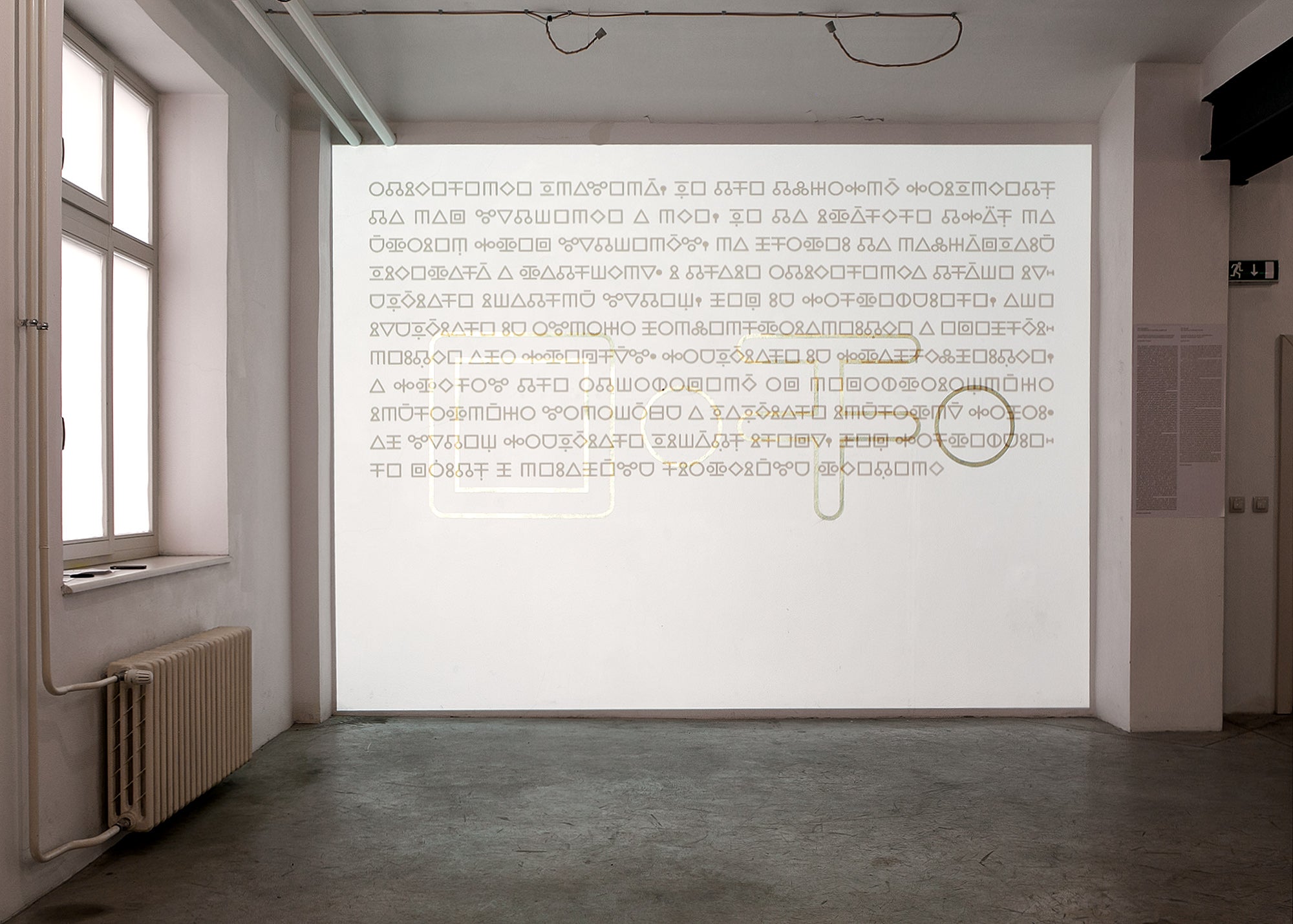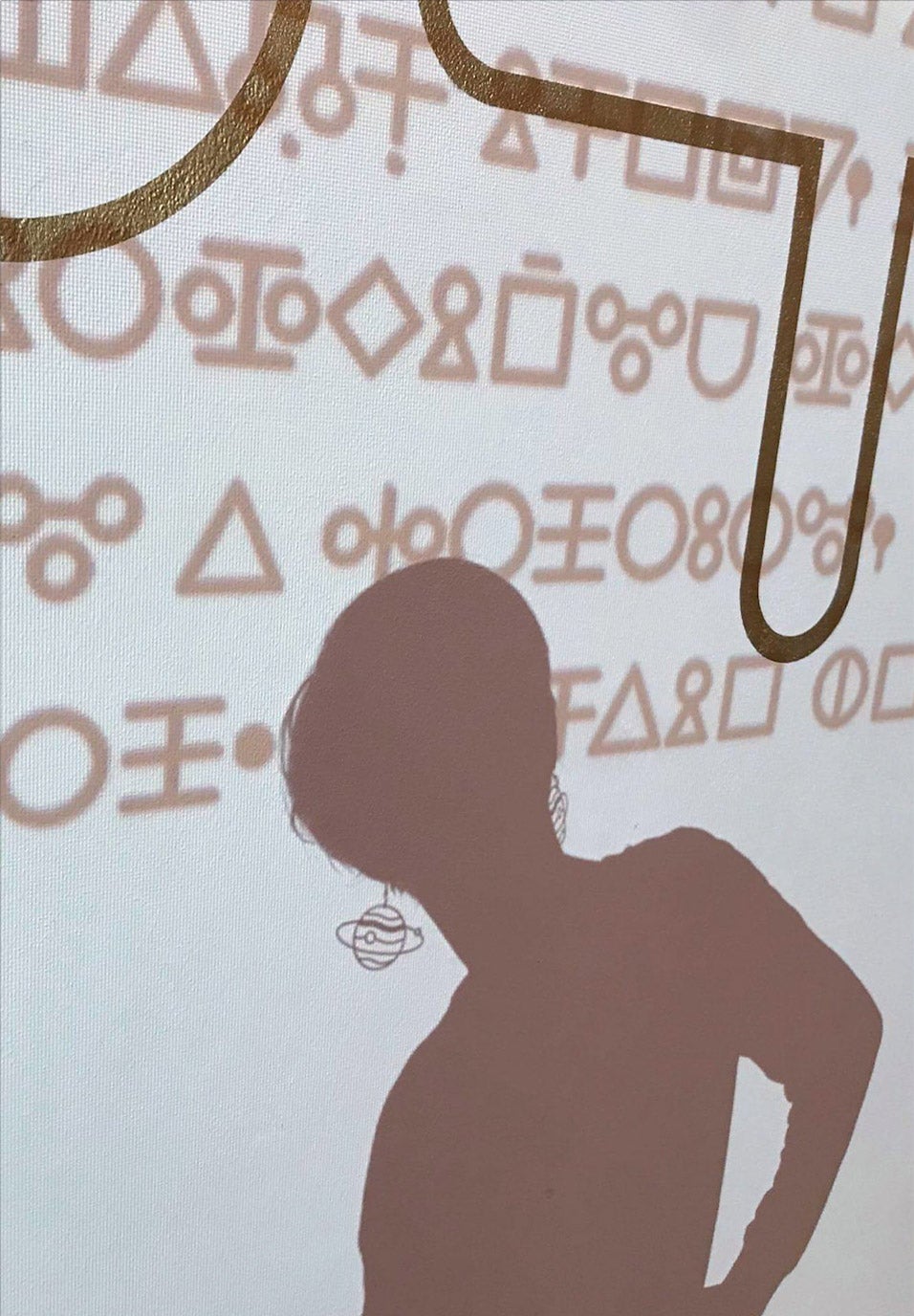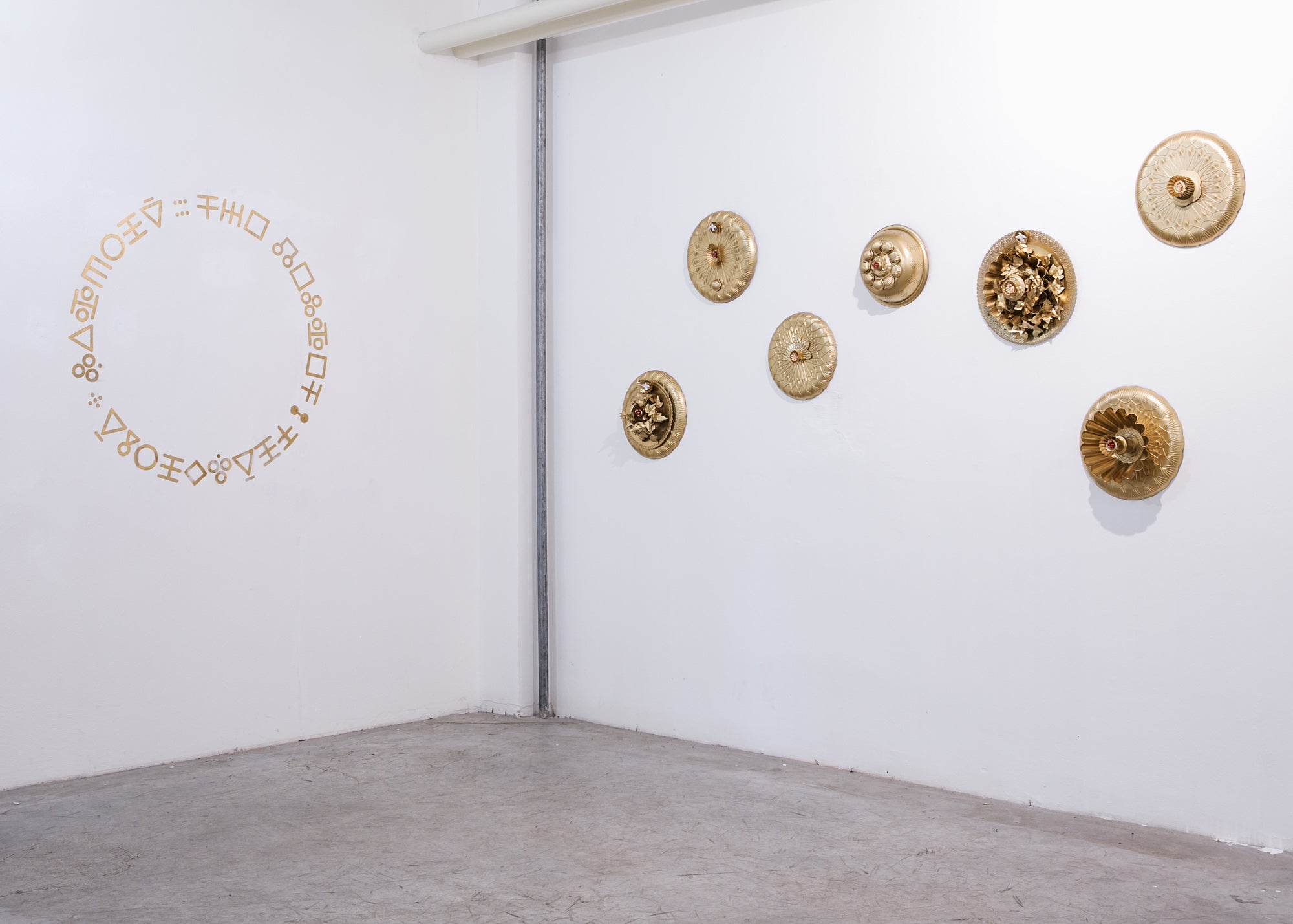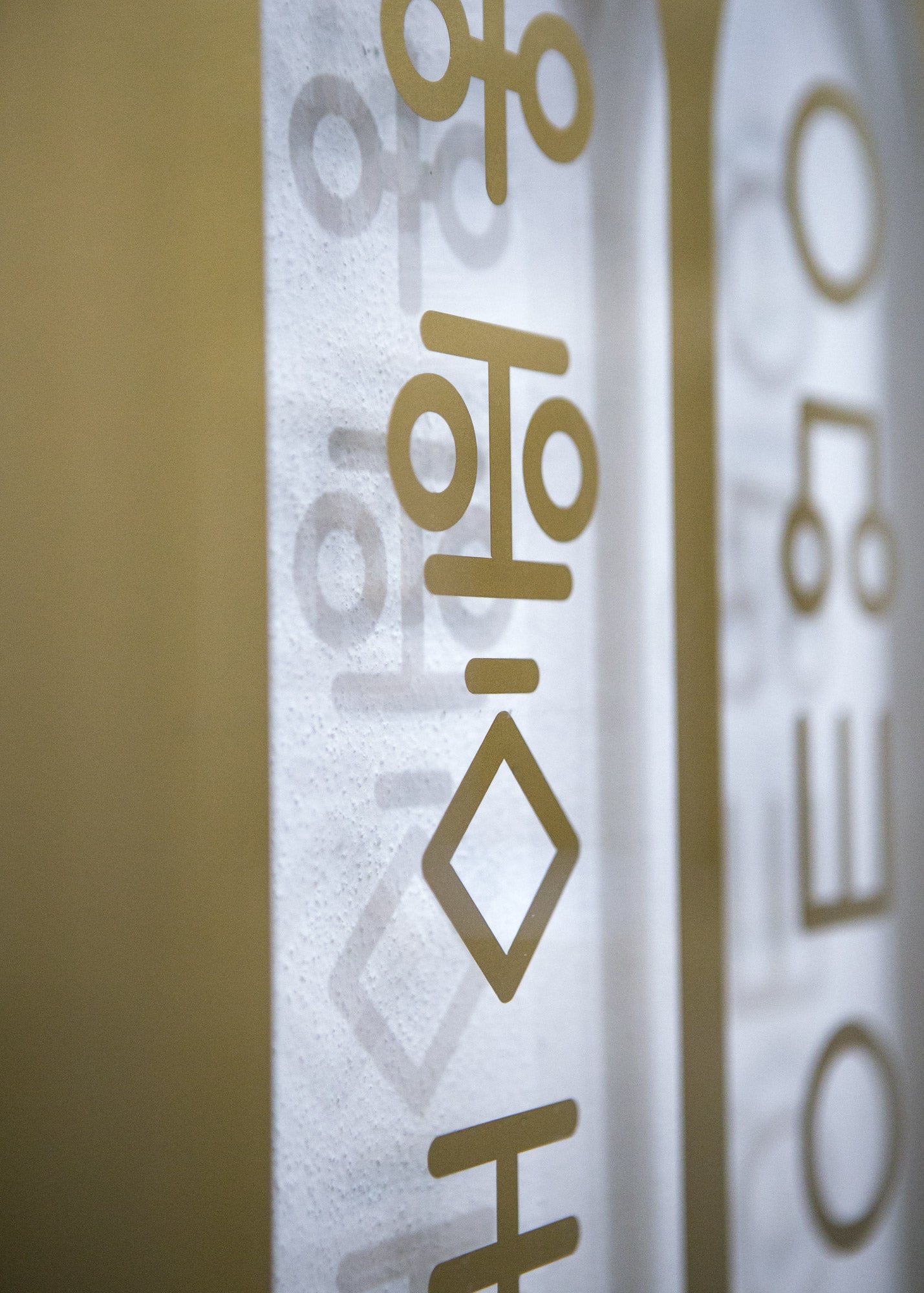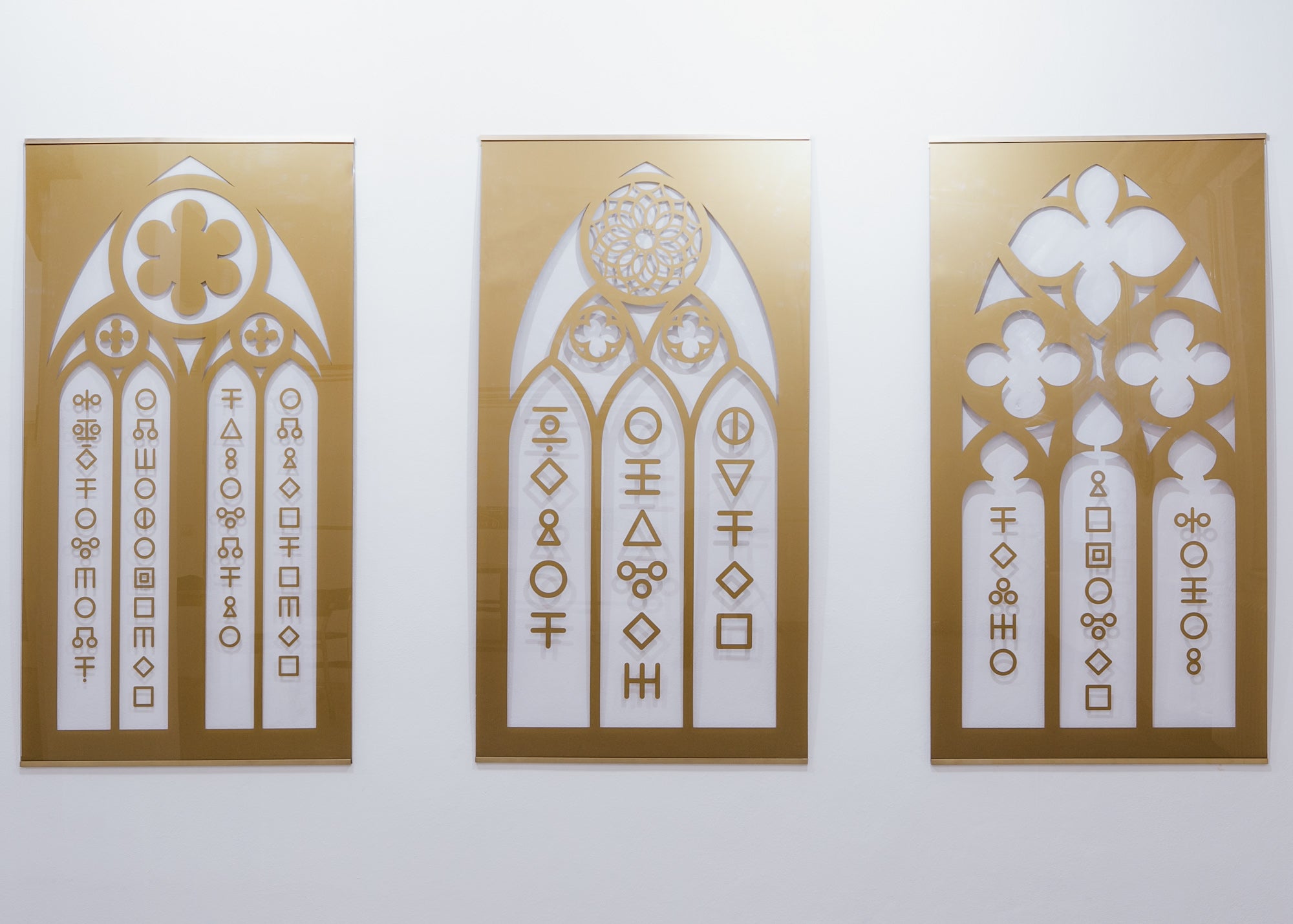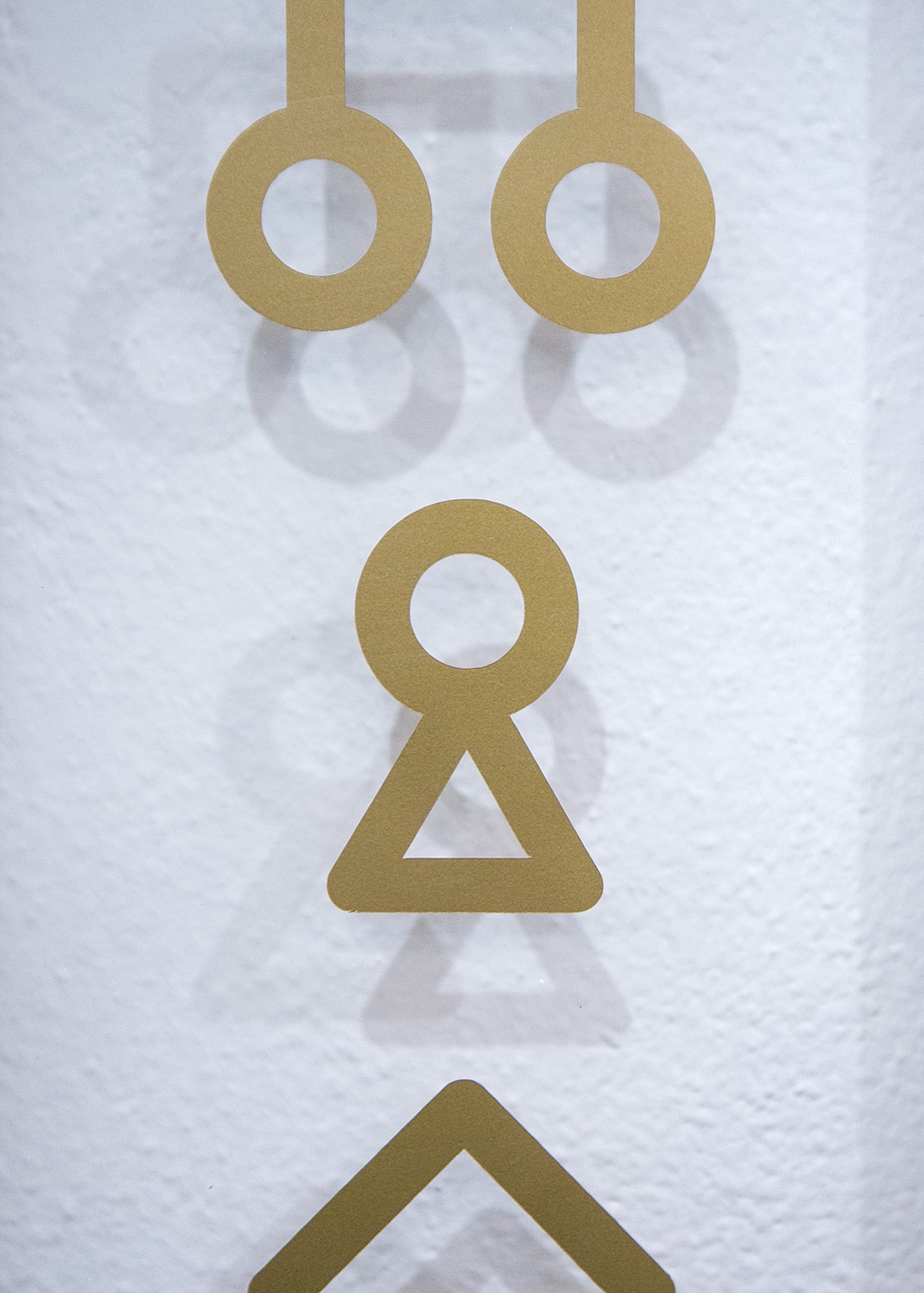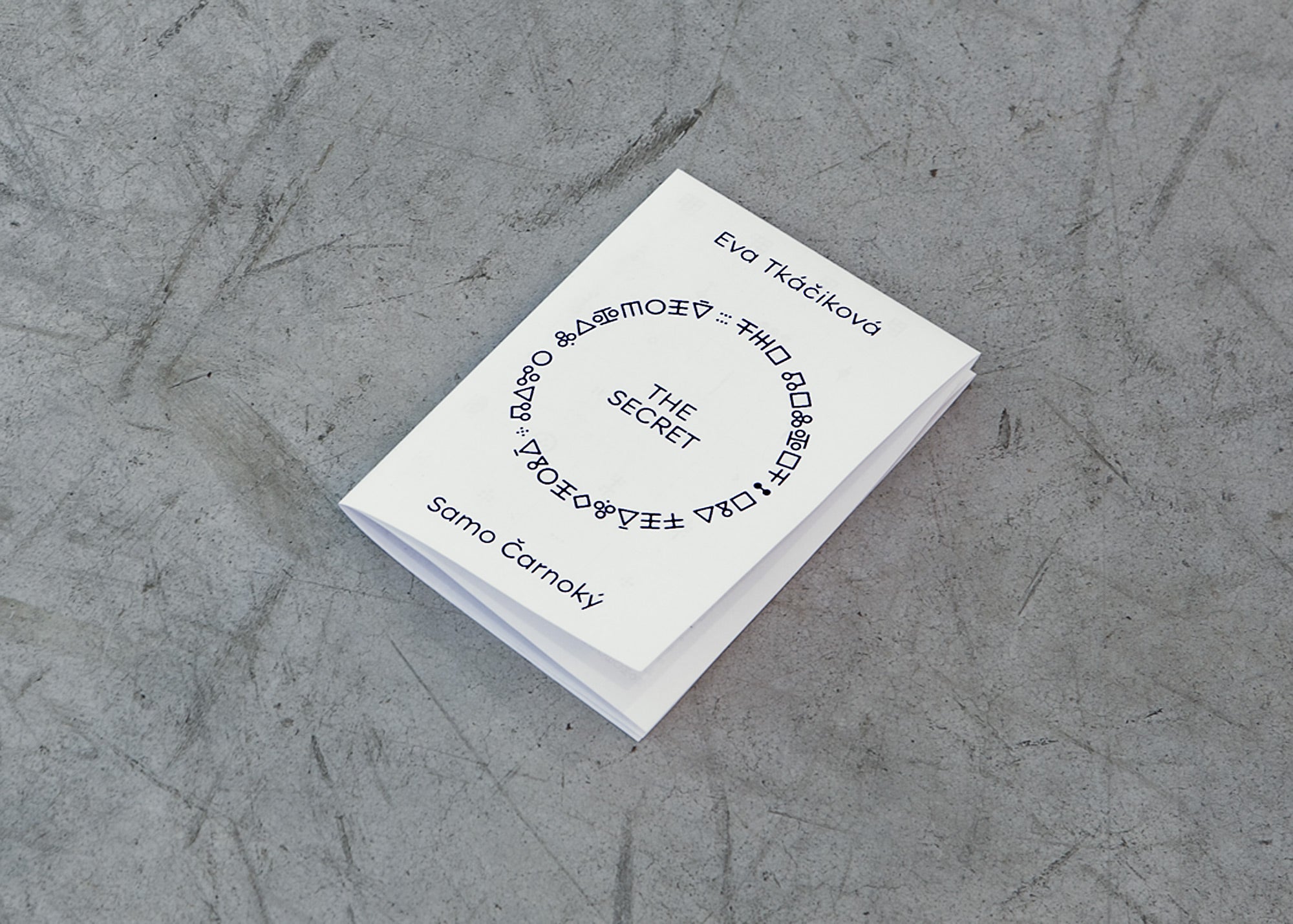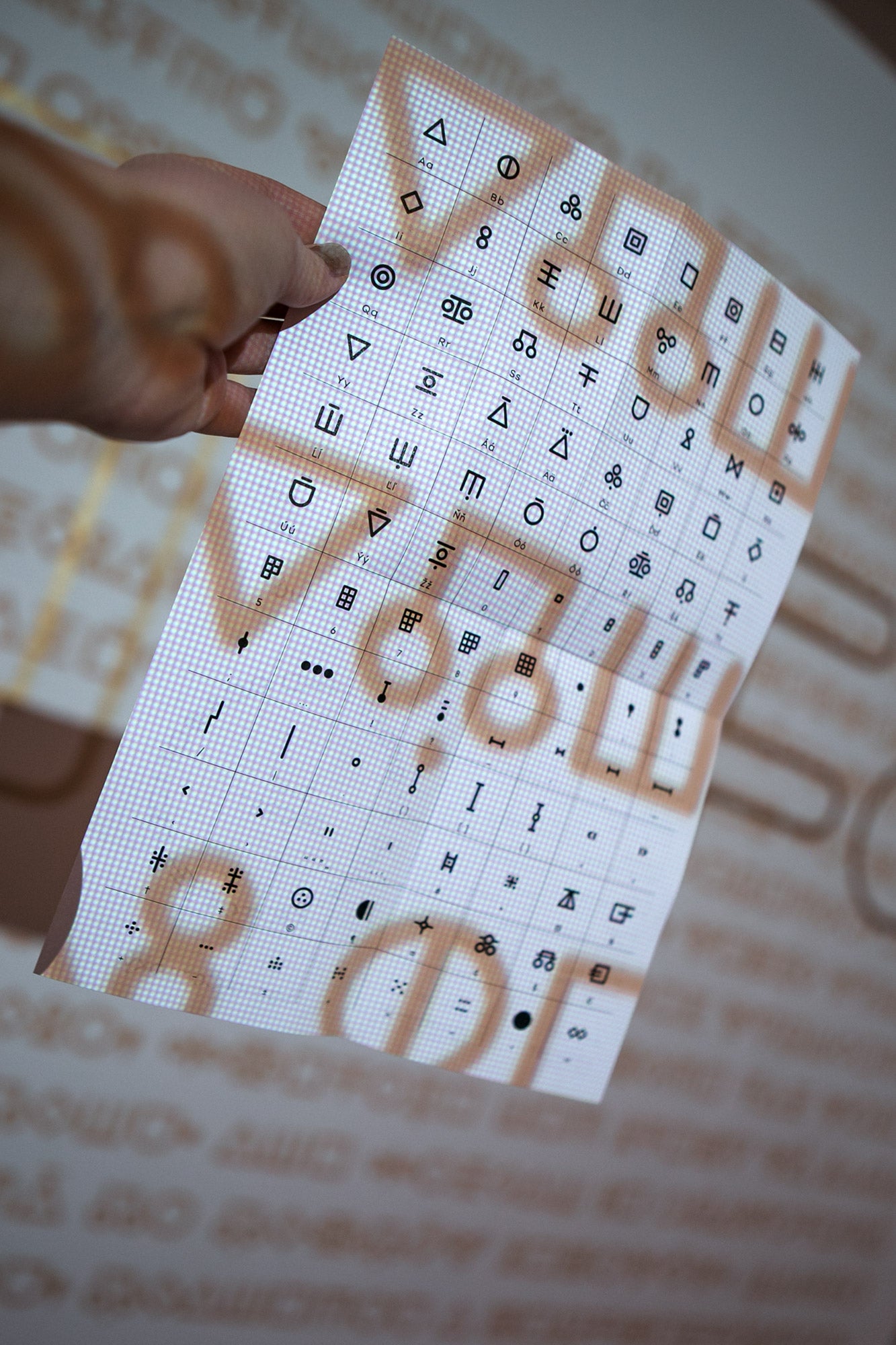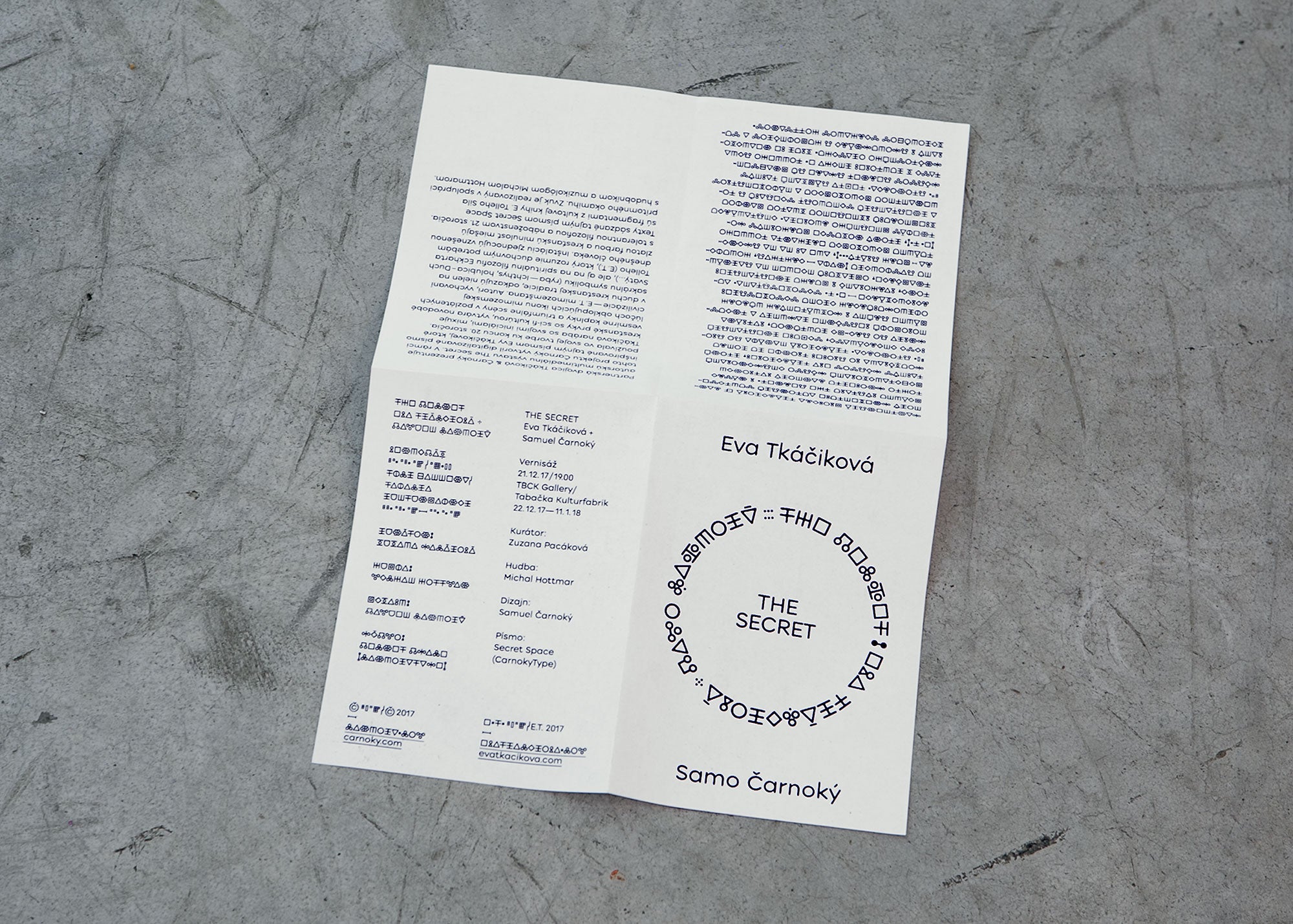
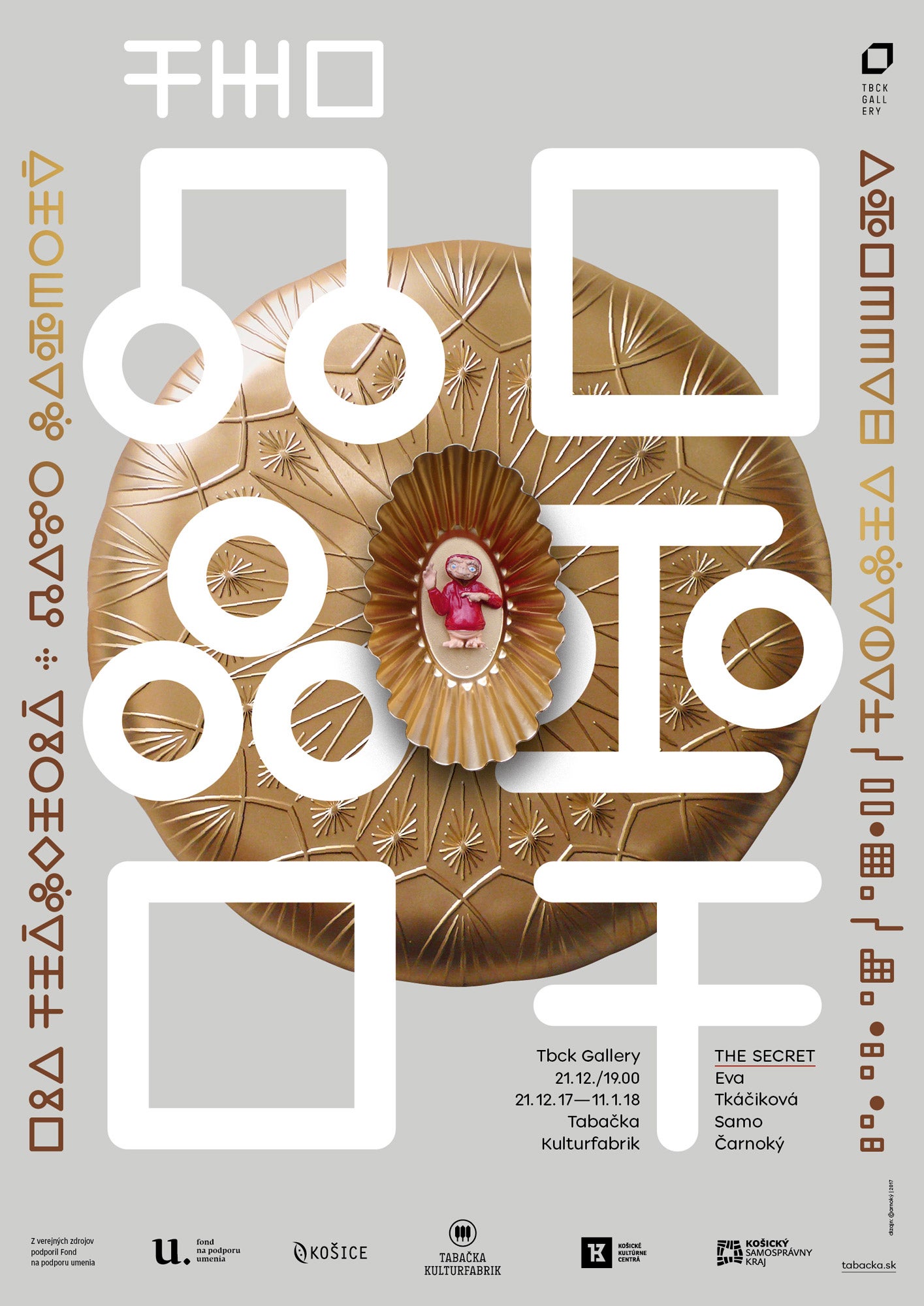
A multi-media exhibition of the couple Tkáčiková & Čarnoký. The authors, both raised in Christian tradition, make references not only to sacral symbolism, mix Christian elements with sci-fi culture, but also with the spiritual philosophy of Eckhart Tolle (E.T.). The texts are set in the secret typeface, Secret Space, are fragments of his cult book, The Power of Now. The Secret Space typeface was designed specifically for this exhibition and was inspired by the secret font of Eva Tkáčiková (E.T.), which she used to use in her past works.